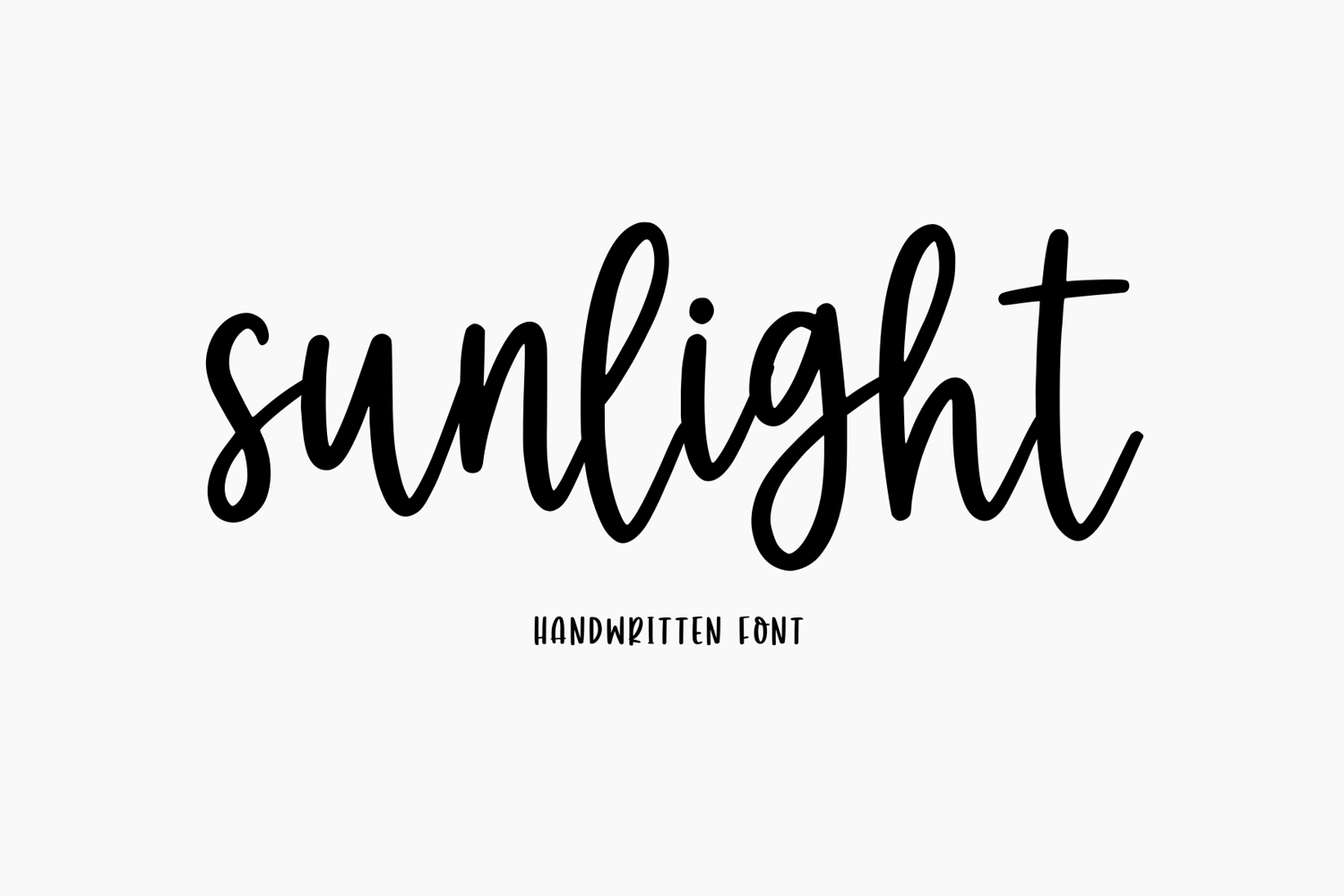
Sunlight is a stylish handwritten script font with bold brush strokes, smooth curves, and a natural hand-lettered feel. Perfect for logos, quotes, T-shirts, Cricut projects, invitations, branding, social media designs, and other creative projects.